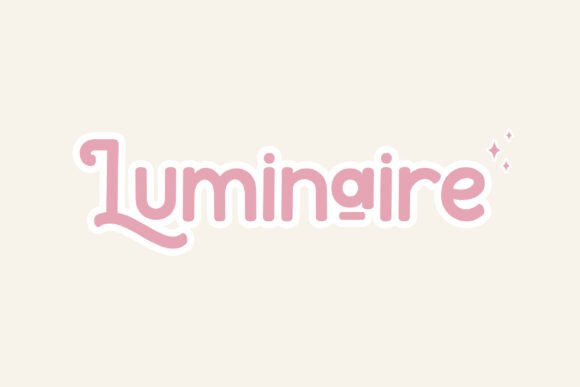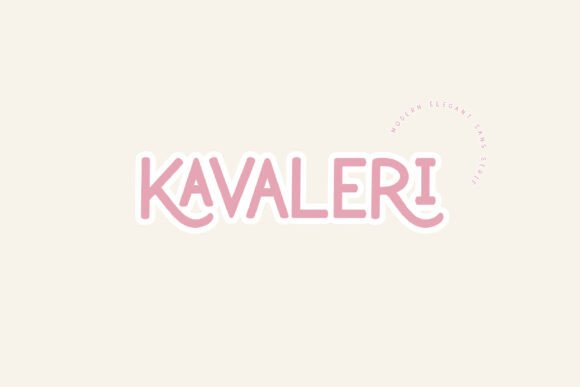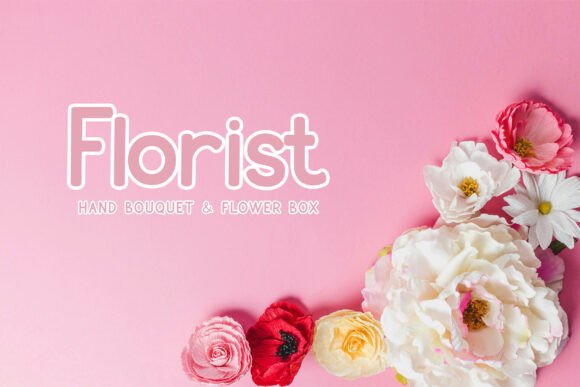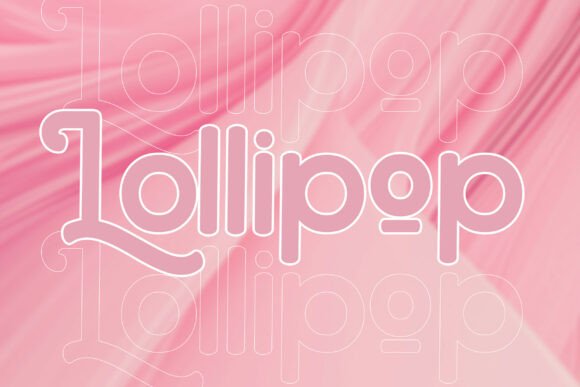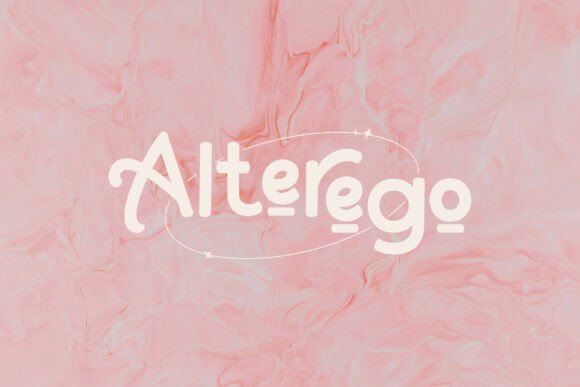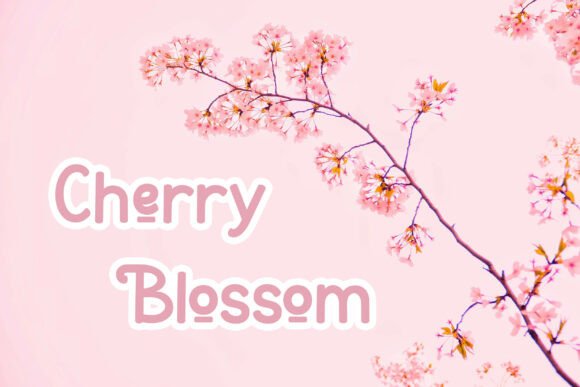
Introduction to Ladyrose Font
Ladyrose is a refined modern elegant sans serif typeface designed to express softness, beauty, and contemporary sophistication.
With its clean lines, subtle curves, and balanced proportions, Ladyrose creates a graceful visual presence that feels both minimal and luxurious Its elegant simplicity adapts seamlessly across different design styles, making it perfect for projects that require clarity with a touch of class.